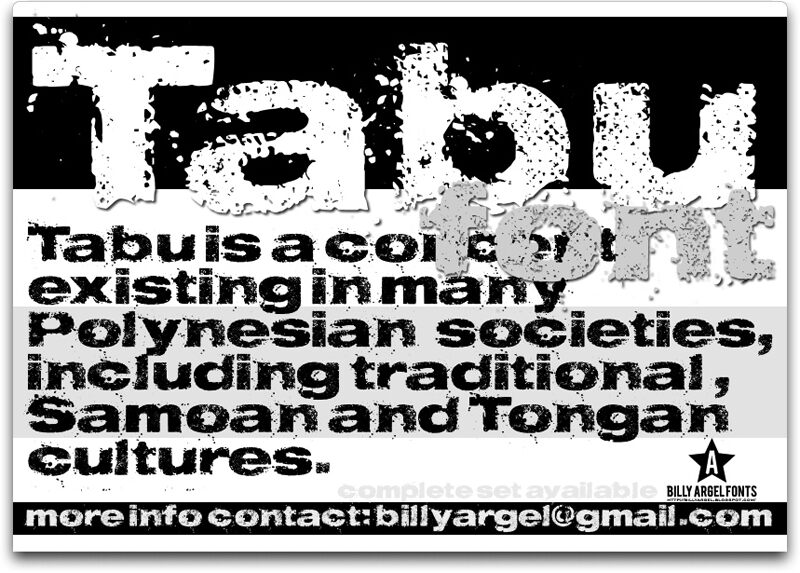
TABU by Billy Argel is a free eroded display font with broad, heavy lettering and a hard-worn print texture. Its dense shapes are chipped by scattered flecks, rough edges, and larger abrasions that vary naturally from letter to letter across the face.
The distressed industrial character suits grunge music posters and album packaging, where the uneven ink effect can echo photocopied artwork, stamped labels, or weathered surfaces and give those pieces a blunt handmade impact. It also fits skate merchandise and streetwear branding, as the damaged face can become part of the printed texture rather than appearing like clean type placed over it.